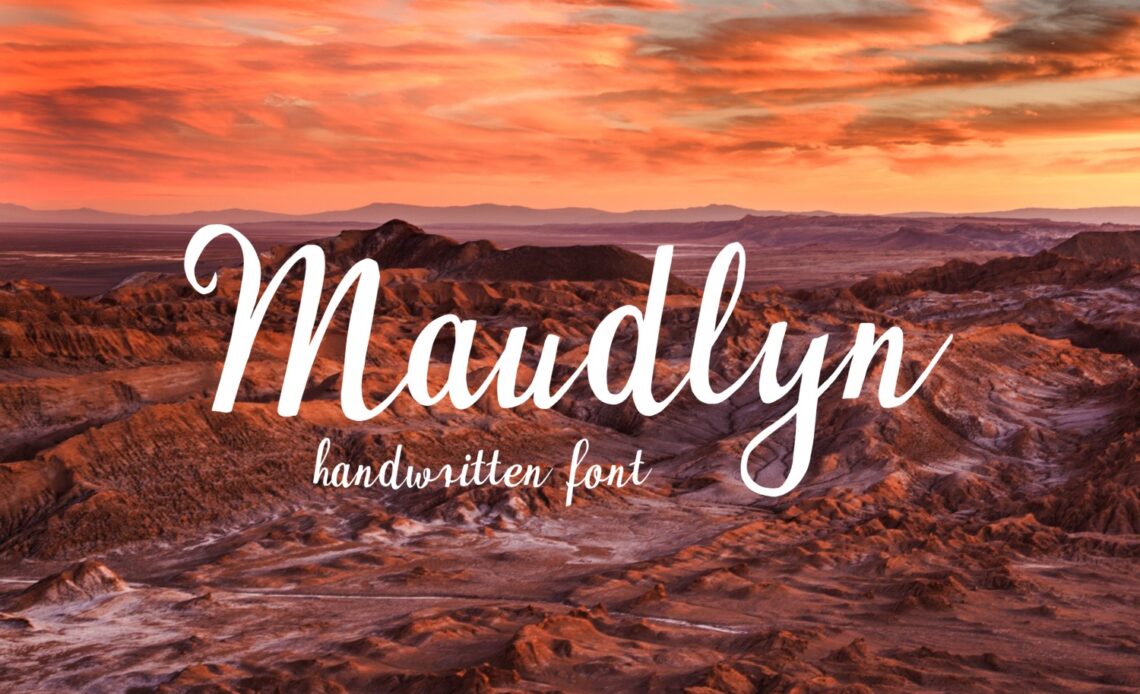
**Introducing Maudlyn: The Script Font That Will Capture Your Heart**
In the realm of digital design, where words dance across screens, there's a font that stands out like a radiant star. Maudlyn, a breathtaking handwritten typeface, is not just a font; it's a symphony of elegance and charm.
Crafted with meticulous care by the renowned Digital Typeface Studio, Maudlyn embodies the essence of romance and legibility. Its graceful curves and playful strokes evoke the allure of love letters penned with a quill, while its unwavering clarity ensures that every word is a delight to behold.
Whether you're an ardent lover of handwritten fonts or simply seeking a touch of enchantment in your designs, Maudlyn is the font that will ignite your imagination. Its versatility knows no bounds, making it an ideal choice for a myriad of projects.
**The Perfect Font for Expressing Your Love**
For those special occasions when words alone cannot convey the depth of your emotions, Maudlyn is the font that will turn your heartfelt messages into exquisite works of art. Imagine your wedding invitations adorned with Maudlyn's enchanting script, each letter flowing seamlessly into the next, creating an unforgettable impression on your guests.
Love letters penned in Maudlyn will become cherished keepsakes, carrying the weight of your affection in every stroke. Its romantic aura will transform ordinary words into extraordinary expressions of your heart's desires.
**Elevate Your Designs with a Touch of Whimsy**
Beyond the realm of love and romance, Maudlyn's versatility extends to a vast array of design applications. Its charming nature adds a touch of whimsy to invitations, greeting cards, and social media posts.
Designers seeking a font that exudes creativity and originality need look no further. Maudlyn's distinctive style will elevate your projects to new heights, capturing the attention of your audience with its undeniable allure.
**A Font for Every Occasion**
The beauty of Maudlyn lies in its adaptability. Whether you're creating a whimsical children's book or a sophisticated brand identity, Maudlyn seamlessly adapts to a wide range of design styles.
Its legibility ensures that your message is always conveyed with clarity, while its handwritten charm adds a touch of warmth and personality to every project.
**Experience the Magic of Maudlyn Today**
Let Maudlyn's enchanting script captivate your audience, ignite your imagination, and elevate your projects to new heights. The world of digital design awaits the touch of your creativity, and Maudlyn is the key to unlocking its boundless possibilities.